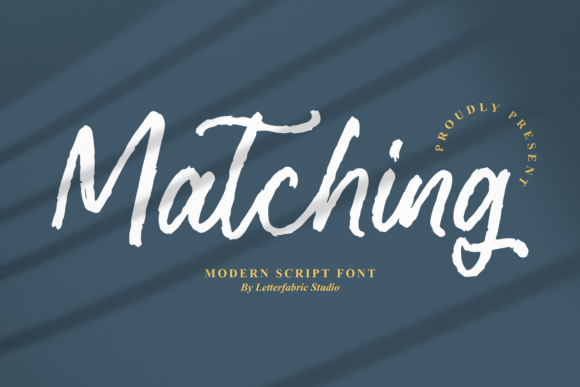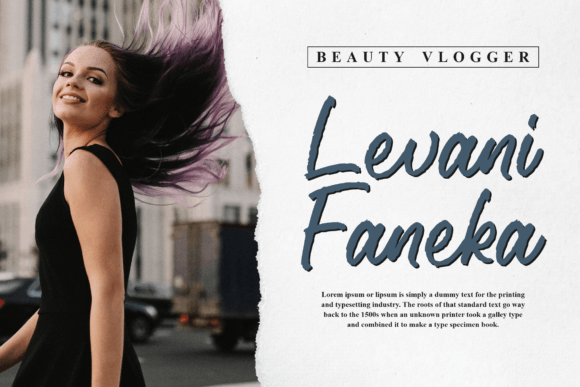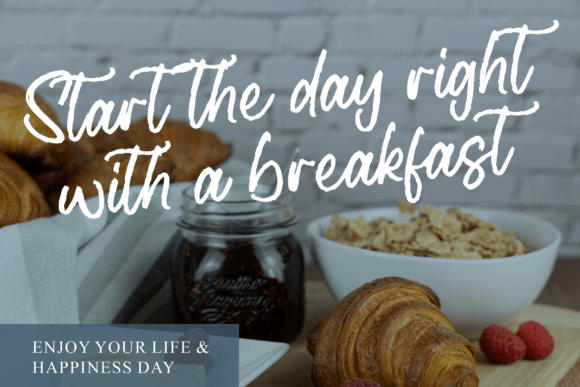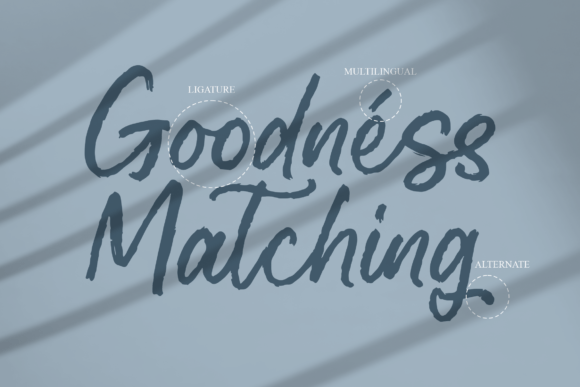
About Matching Font
“Matching” is not just a font; it’s a modern handwritten script designed to bring a natural, stylish, and personalized feel to your projects. The versatility of this font makes it a perfect choice for a wide range of extraordinary projects that demand a handwritten aesthetic. Whether you’re working on wedding invitations, thank-you cards, quotes, greeting cards, logos, business cards, or any other design that requires a customized touch, “Matching” stands out as a versatile and appealing option.
The modern handwritten script style of “Matching” is characterized by its contemporary and casual appearance. The natural strokes and fluidity of the characters contribute to a stylish and authentic look, making it a font that resonates with current design trends. This modern touch ensures that “Matching” is well-suited for a variety of creative applications.
The versatility of “Matching” is a standout feature. Its ability to adapt to different design contexts, from wedding invitations to business cards, showcases its broad range of applications. The font seamlessly integrates into various projects, bringing a customized and handcrafted touch to each design.
The personalized feel of “Matching” is particularly valuable for projects that require a distinct and human touch. Whether used in quotes or logos, this font adds a layer of authenticity, making the text feel uniquely crafted. The customized touch it provides contributes to the overall impact of the design.
In summary, “Matching” is more than just a font; it’s a modern handwritten script that effortlessly combines a natural, stylish feel with a personalized touch. Embrace its versatility for a wide range of projects, confident that “Matching” will elevate your designs with its contemporary aesthetic and handcrafted charm. Let it be the font that brings a distinctive and personalized feel to your extraordinary projects.